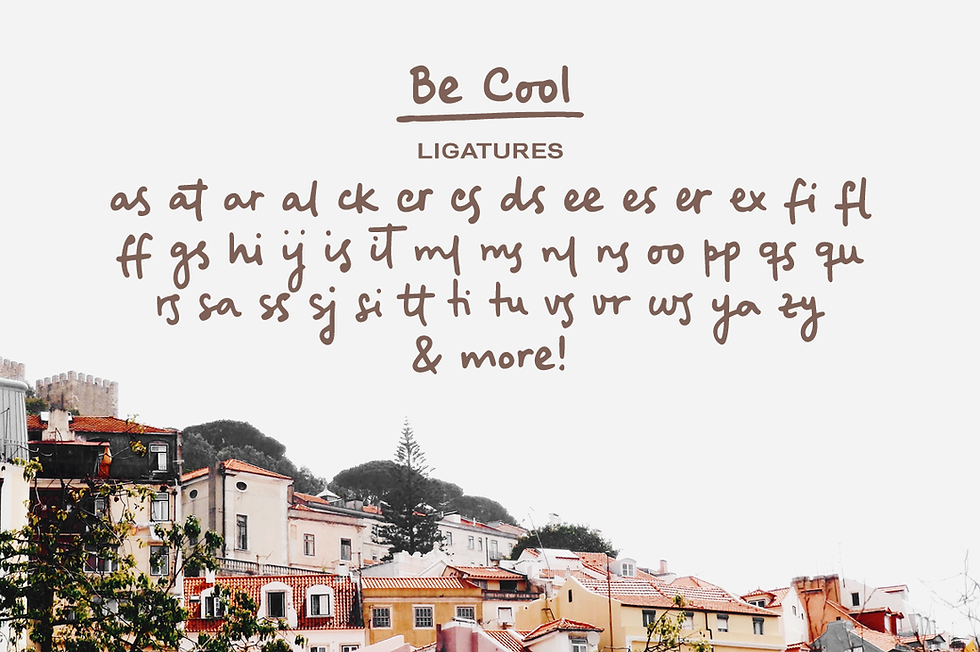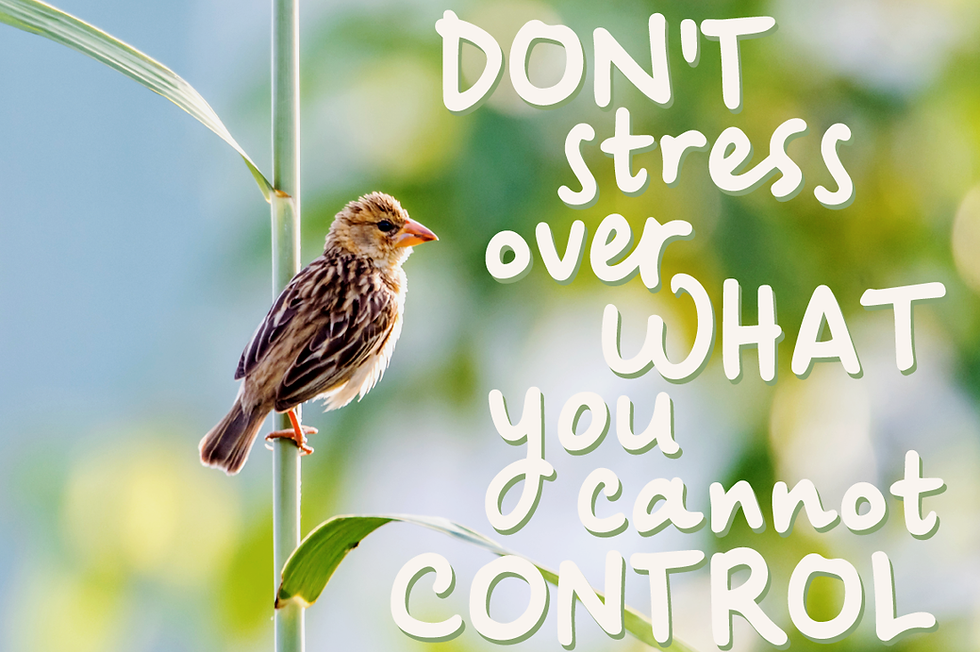
Be Cool is a cute handwritten font with:
An alternate character set (A-Z, a-z)
An extra set of swashes and ornaments to help decorate your text
A-Z, a-z, numbers and punctuation
Multilingual support
Dozens of ligatures that give it a true handwritten feel
Use Be Cool in any design that needs a handwritten feel, such as signatures, notes and quotes, logos and branding.
Be Cool handwritten sans font